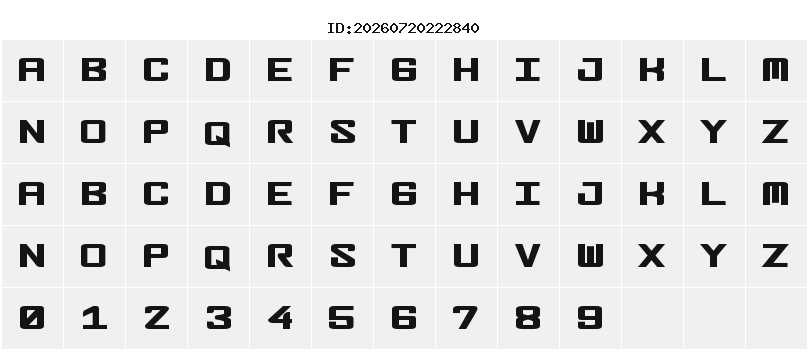
• Font Name: FonderianBlack
• Font Style: Black
• Designer: Max Infeld
• Manufacturer: xerographer.com
• Description: Created by Xerographer Studios in Chico, California.
About FonderianBlack.ttf
FonderianBlack.ttf is a modern, elegant sans-serif font designed for ultimate readability and visual harmony. Perfect for branding, headlines, web design, and print materials.